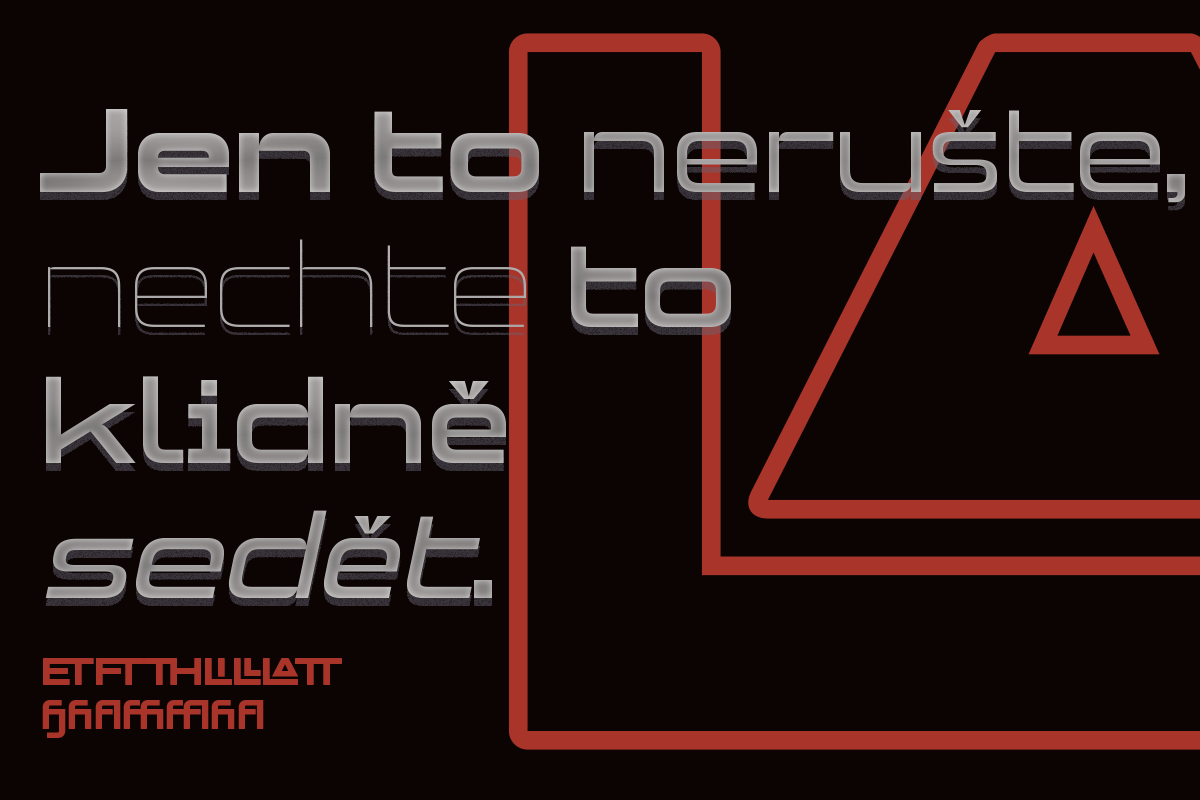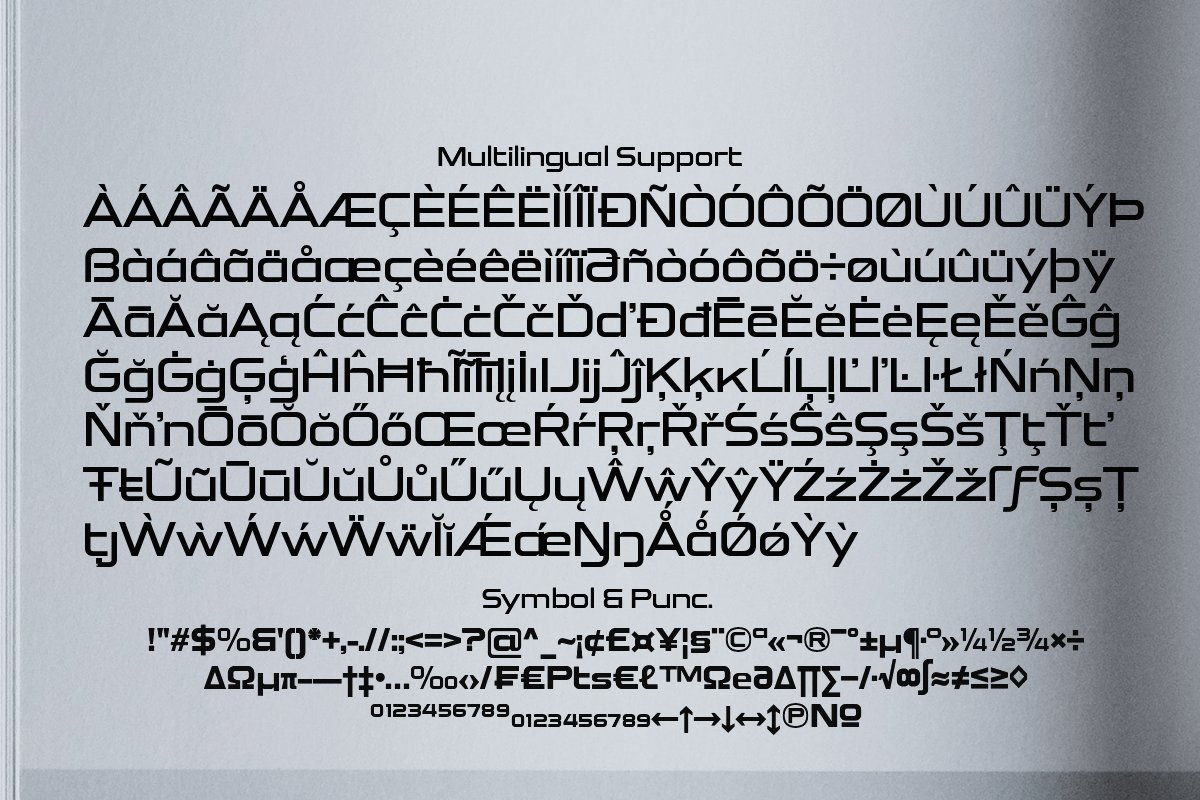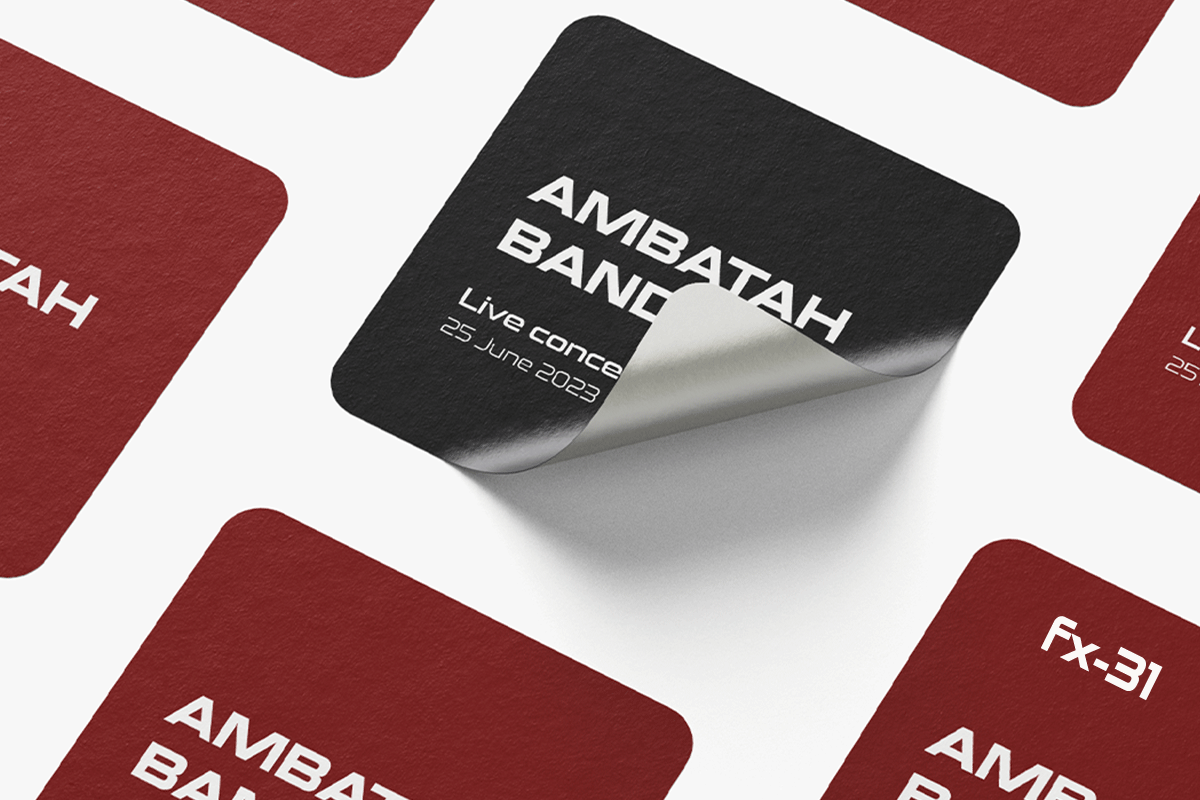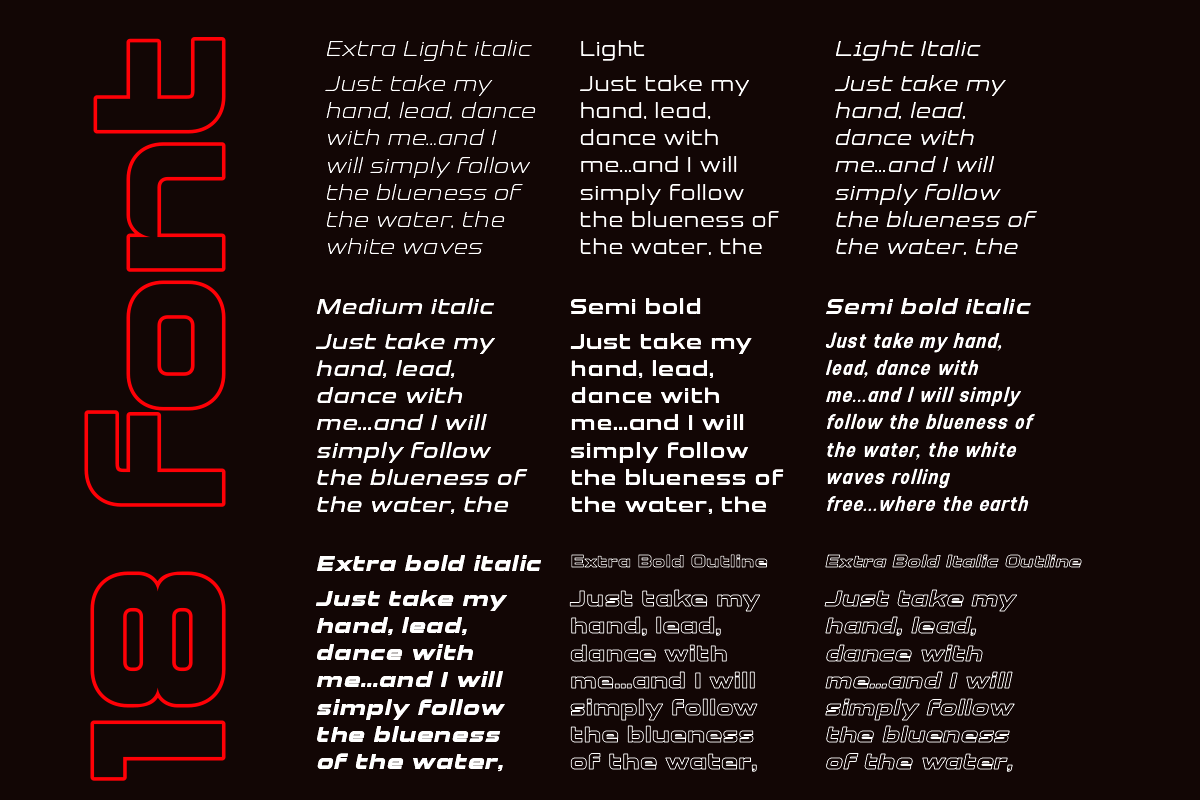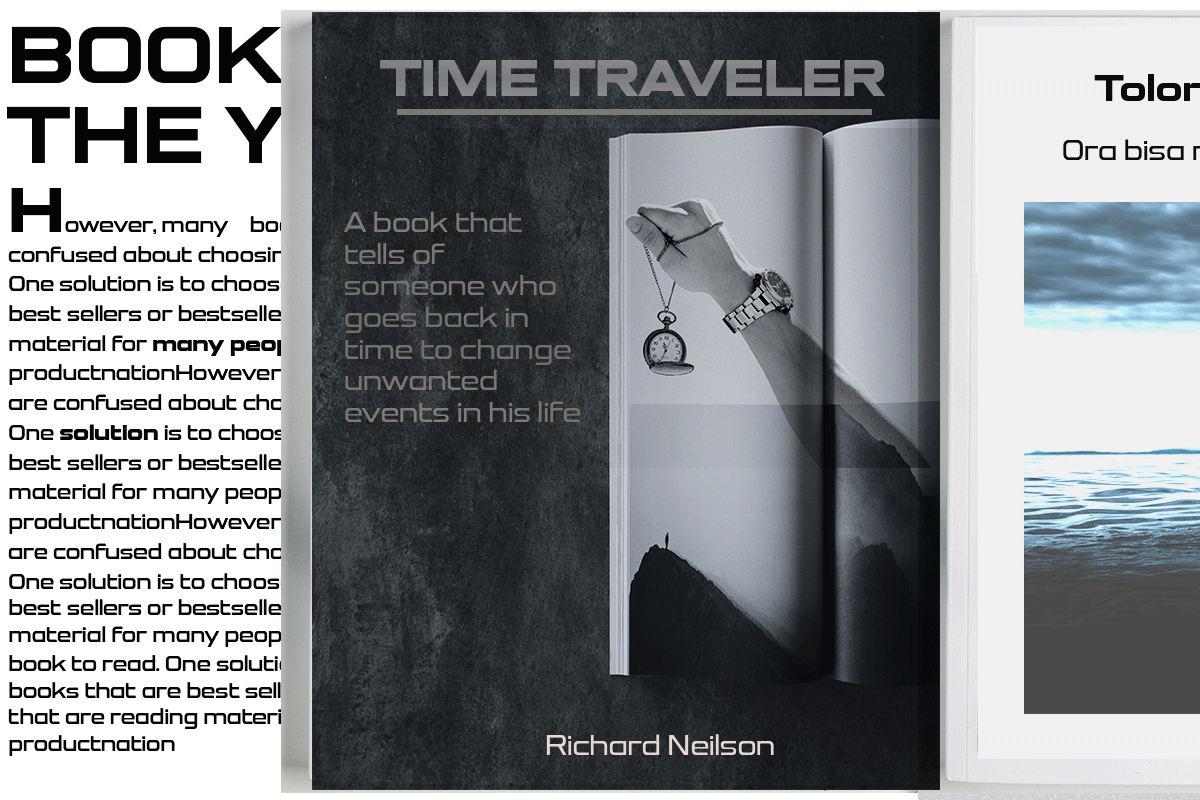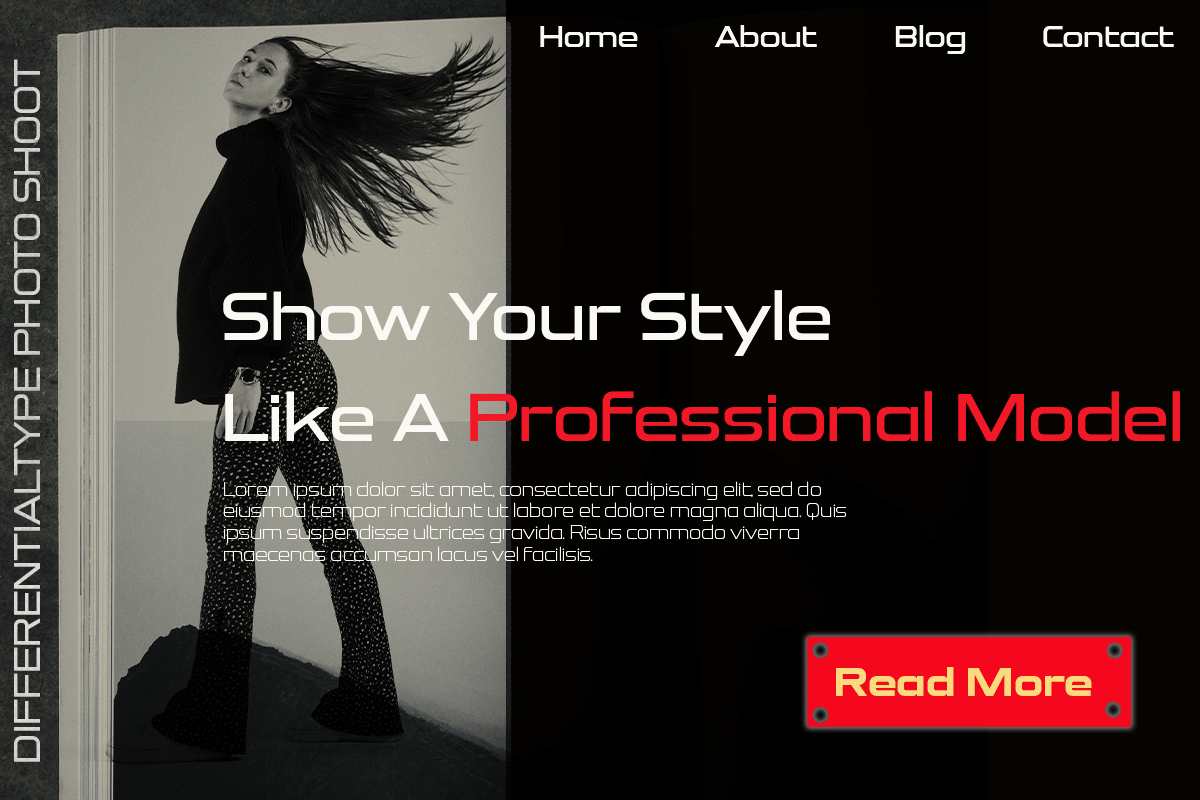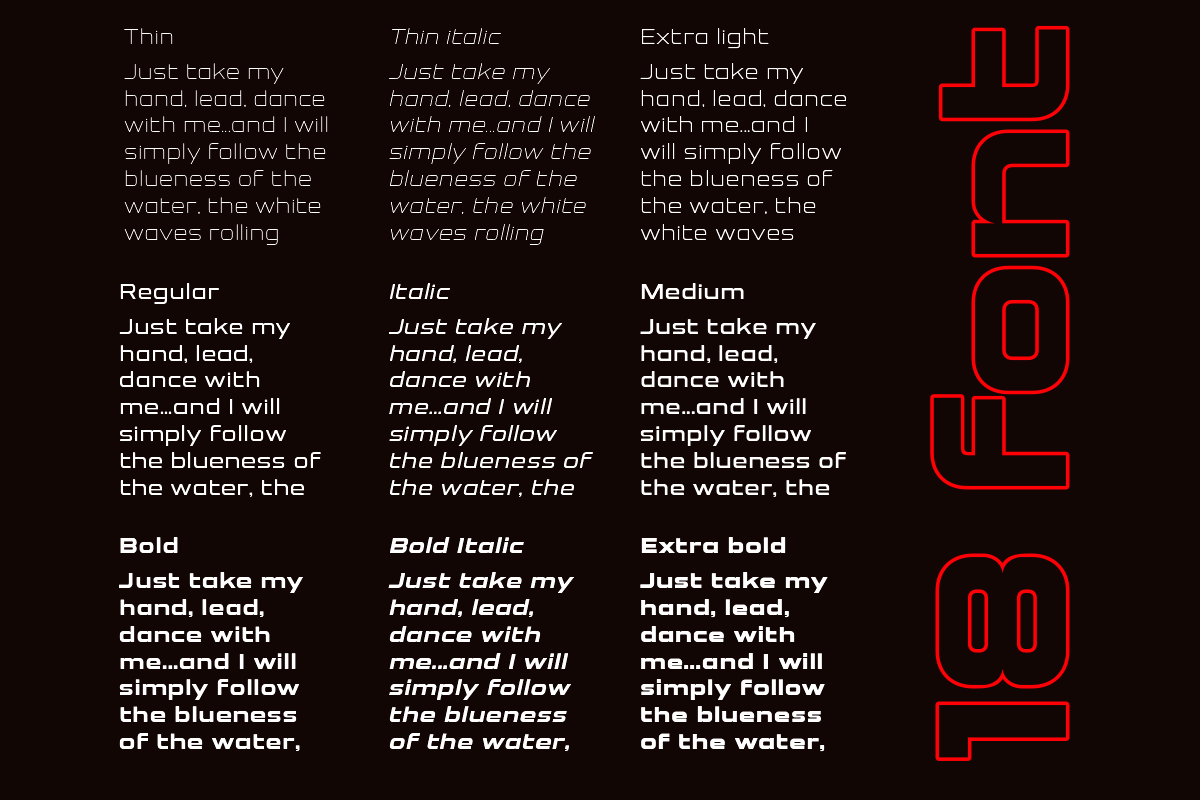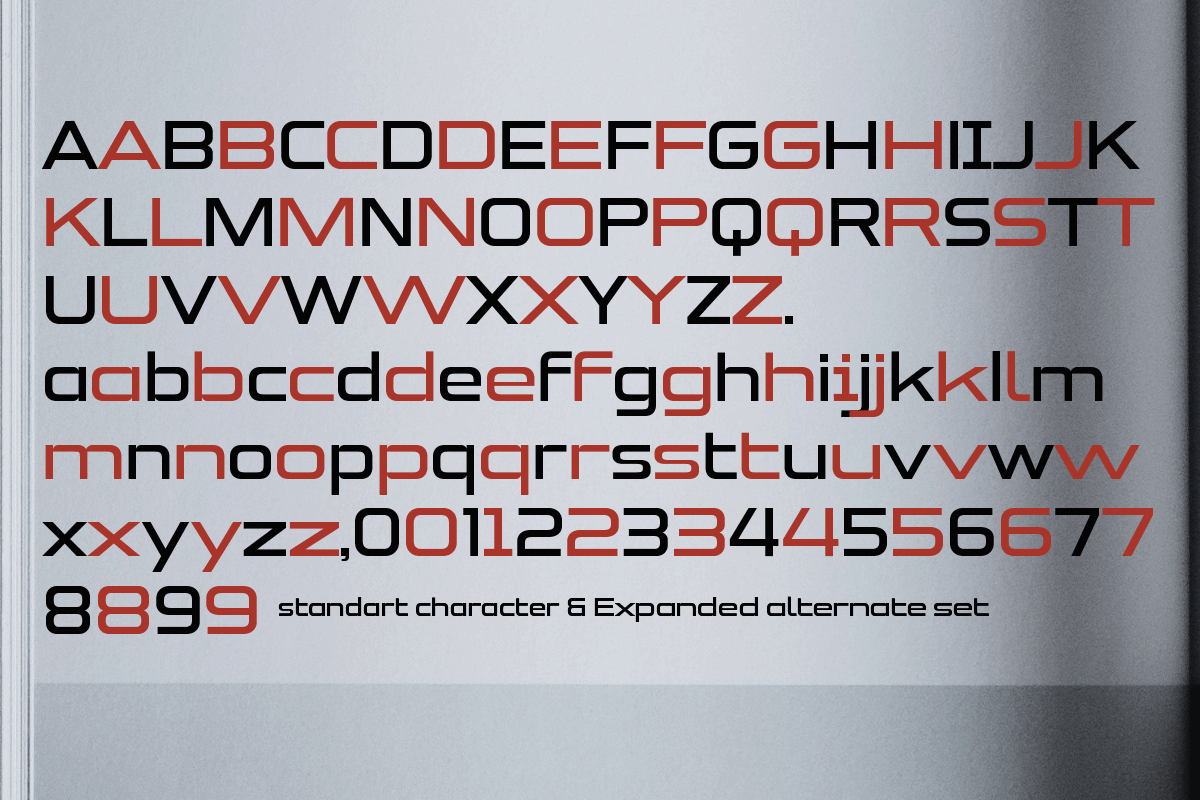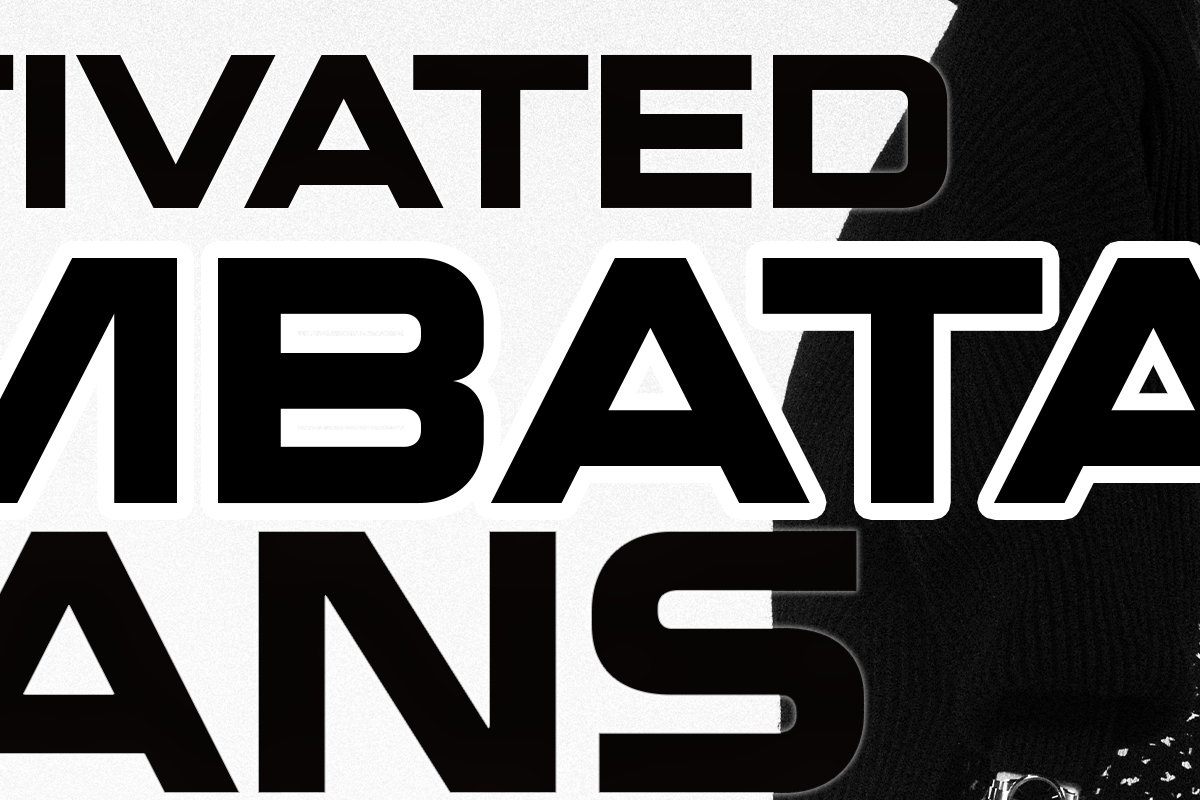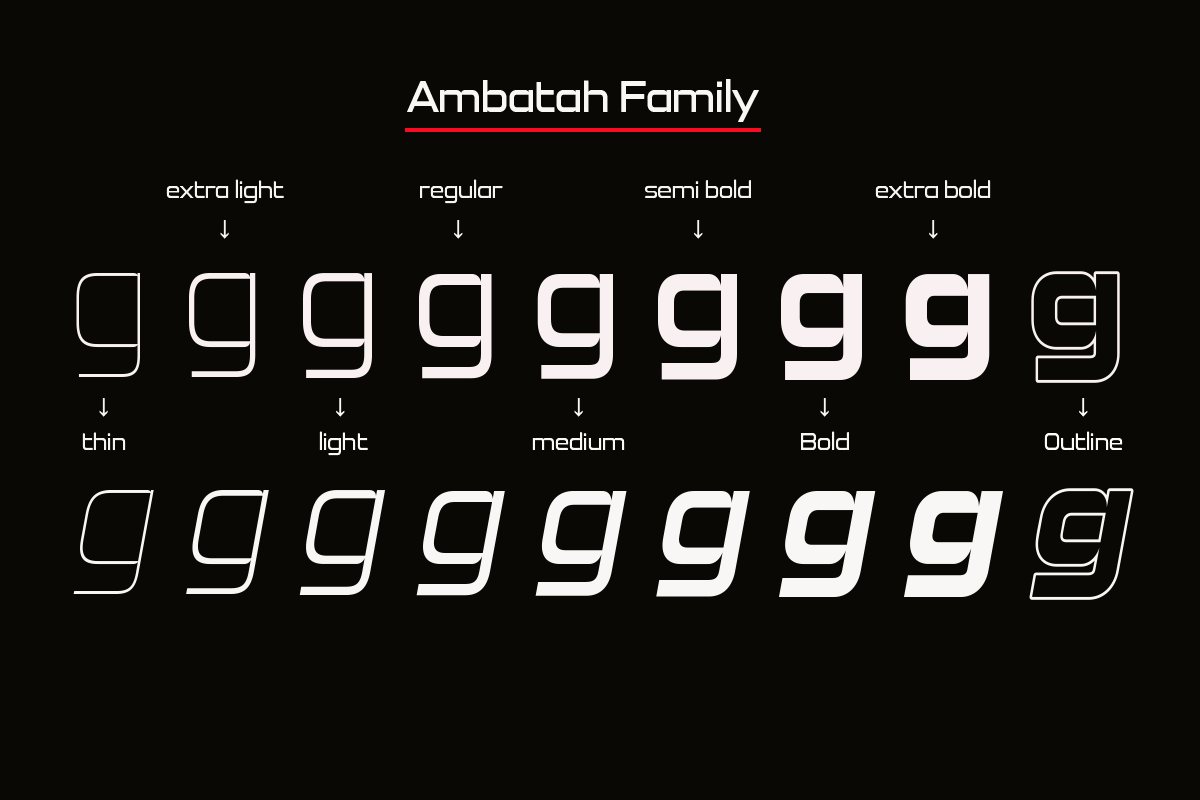
Ambatah
Ambatah is a sans serif font family that comes with 18 styles. Specially designed to be your favorite font of choice. Add it to any of your creative projects, and it will make it stand out! Ambatah has a set of expanded alternate characters, and all is PUA coded, which means you can access all glyphs and swashes easily!